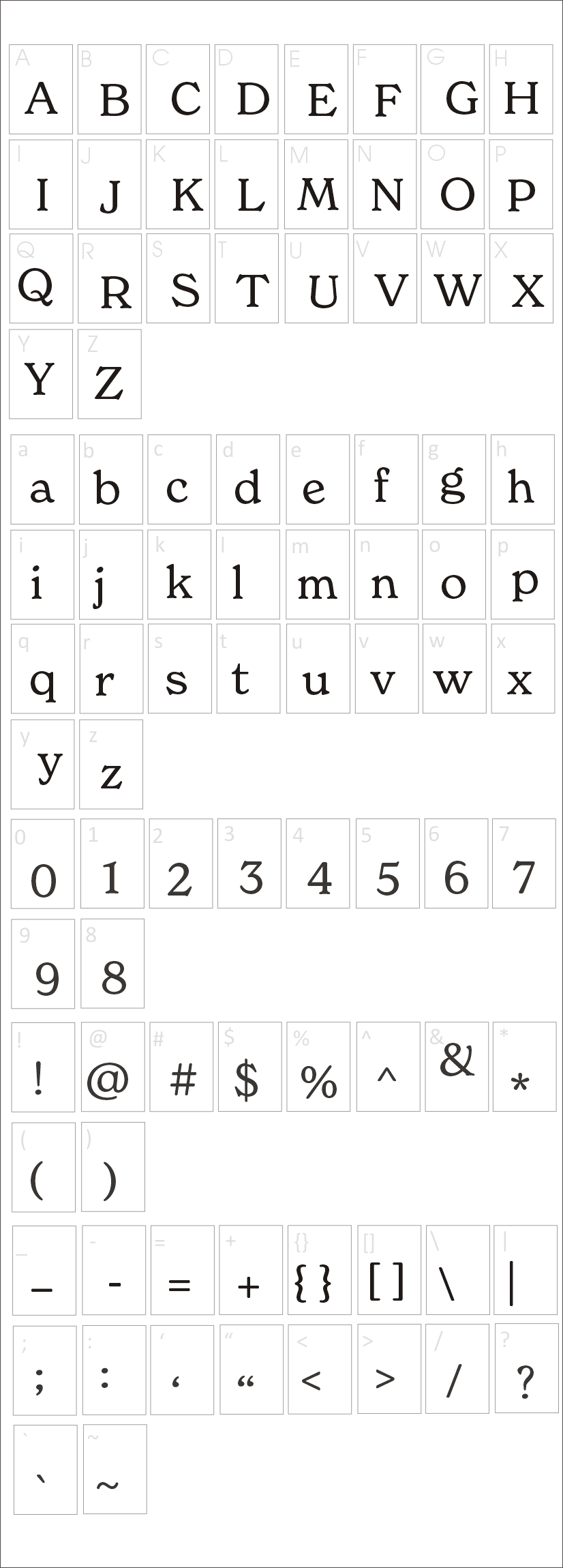
| Name | New Spirit Font |
| Category: | Serif, Modern, Elegant |
New Spirit is a dynamic and contemporary font family designed to capture the essence of innovation and progress. With its bold energetic forms and modern aesthetic. New Spirit is perfect for projects that require a fresh and forward-thinking approach.
Key Features of New Spirit Font Family:
- Modern and Energetic: New Spirit’s bold and dynamic forms exude energy and vitality.
- Versatile Usage: The font is suitable for various projects, from branding and advertising to website design and social media.
- Clear and Readable: New Spirit’s clean and balanced letterforms ensure easy reading on various screen sizes and devices.
- Multiple Weight Options: The font family includes various weight options (e.g., Regular, Bold, Italic), allowing you to find the perfect style for your needs.
Use Cases for New Spirit Font Family:
- Branding: Use New Spirit for logos, business cards, and other branding materials to create a modern and energetic identity.
- Advertising: New Spirit is a great choice for headlines, billboards, and other advertising campaigns.
- Website Design: Incorporate New Spirit into your website design for a fresh and modern look.
- Social Media: Use New Spirit for social media graphics, captions, and profiles to engage your audience.